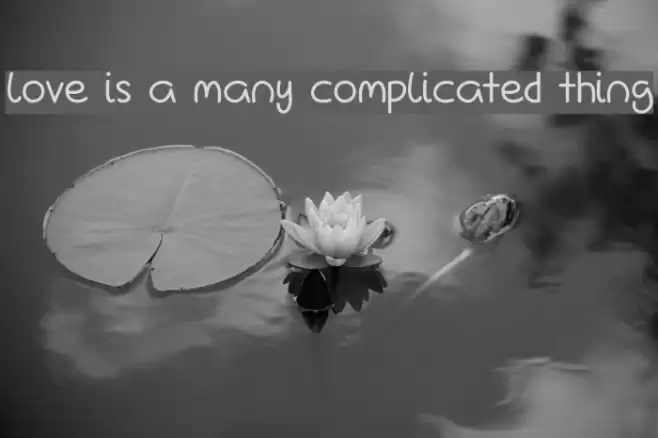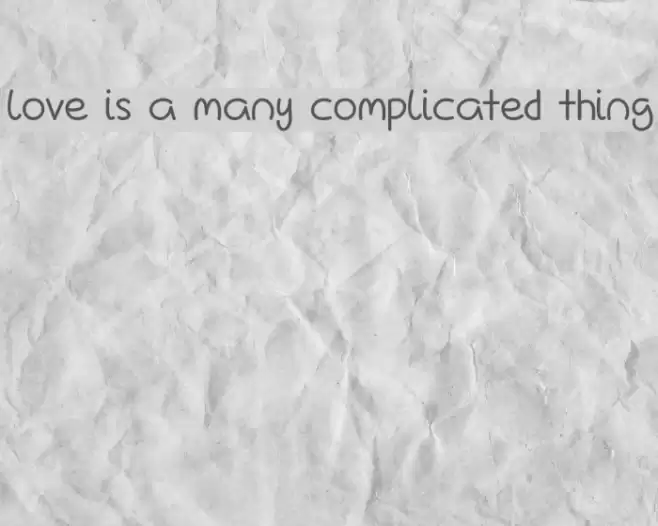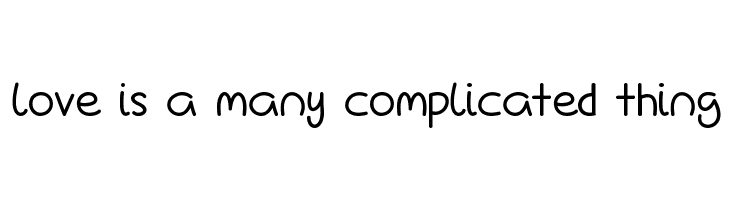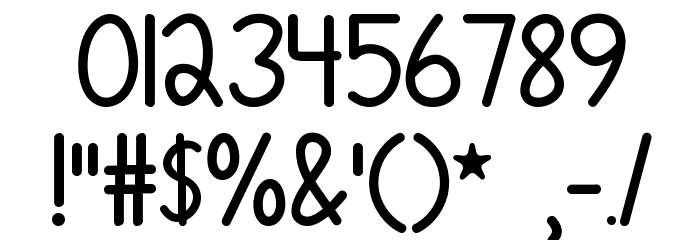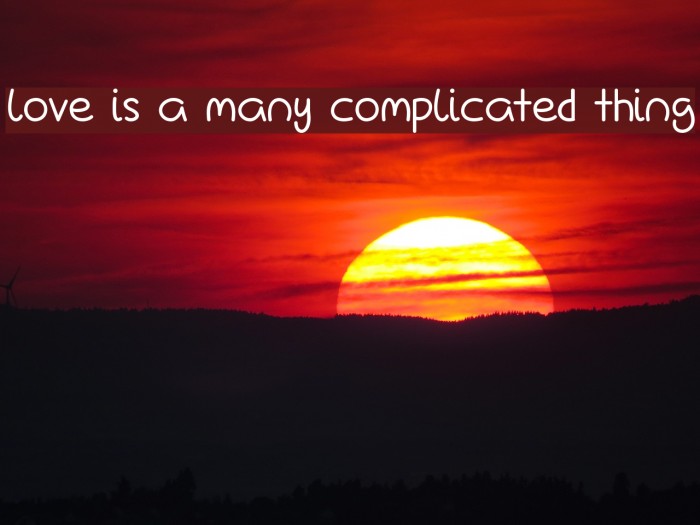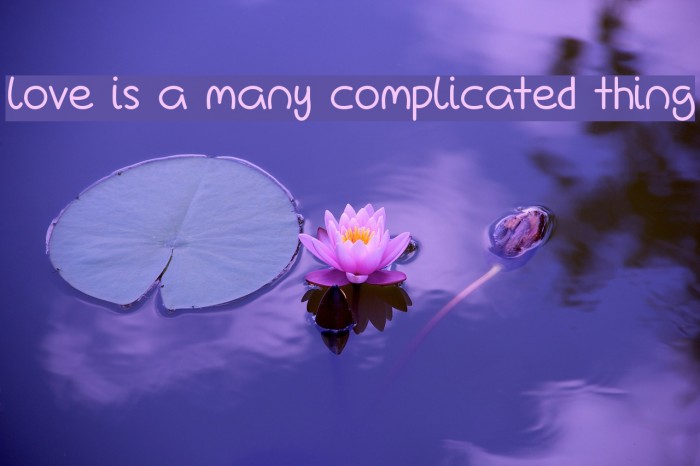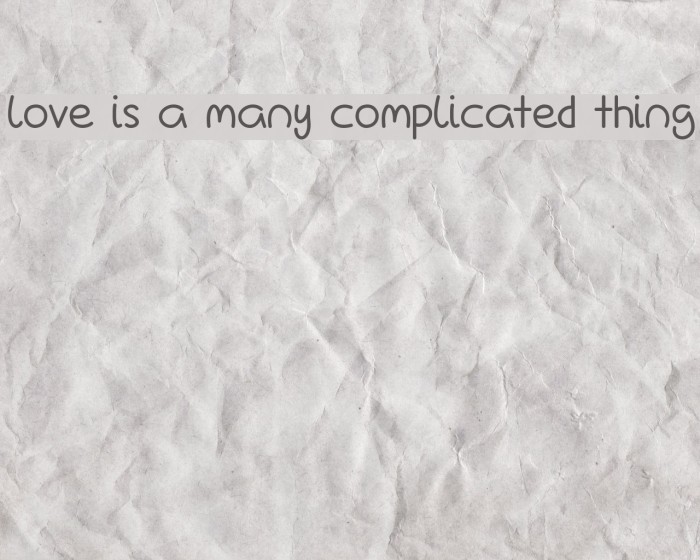
Love Is A Many Complicated Thing Font
Love Is A Many Complicated Thing Description
This playful and rounded font exudes a friendly and approachable vibe. The characters are smooth and slightly whimsical, with consistent stroke widths that give it a uniform appearance. The rounded edges and open counters enhance its readability, making it suitable for both digital and print mediums. Its casual style is reminiscent of handwriting, yet it maintains a structured form that ensures clarity. The font's simplicity and charm make it versatile for various applications, from children's books to informal branding projects. Its design is both modern and timeless, appealing to a wide audience.
A playful, rounded font with a friendly and approachable style from Uncategorized fonts.
- Proposed Projects: Ideal for children's books, casual branding, greeting cards, and playful advertisements.
- Overall Style: Playful
- Use Case: Headlines, Logos, Informal Text